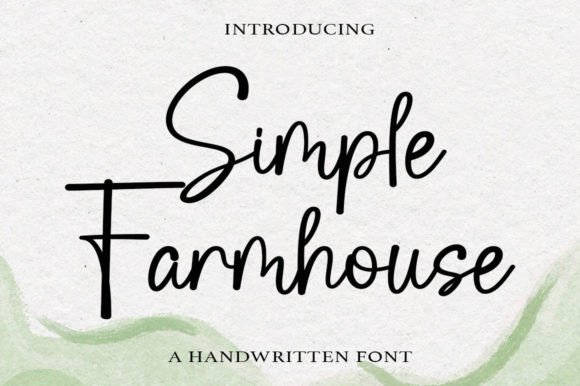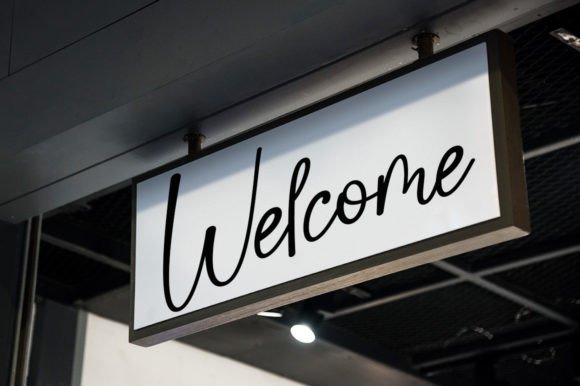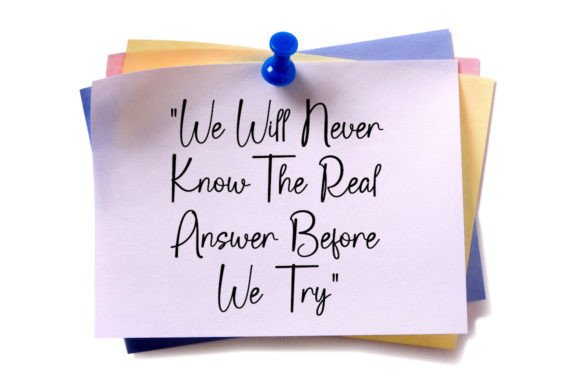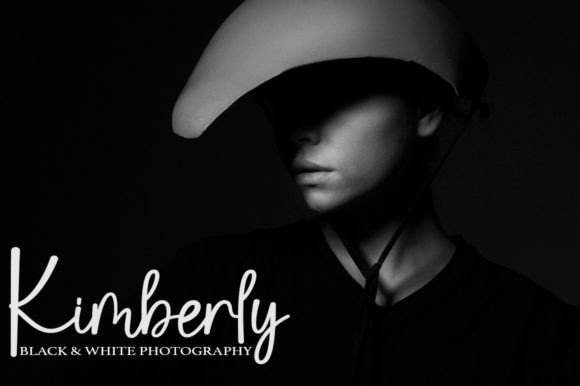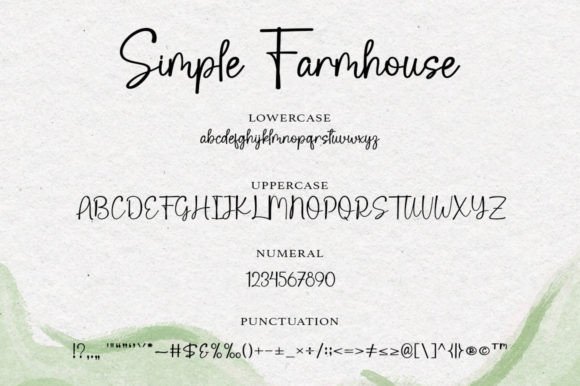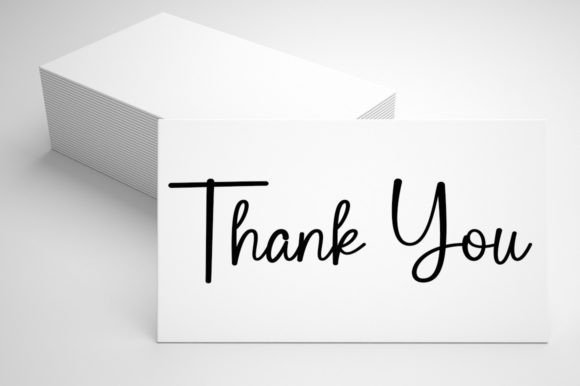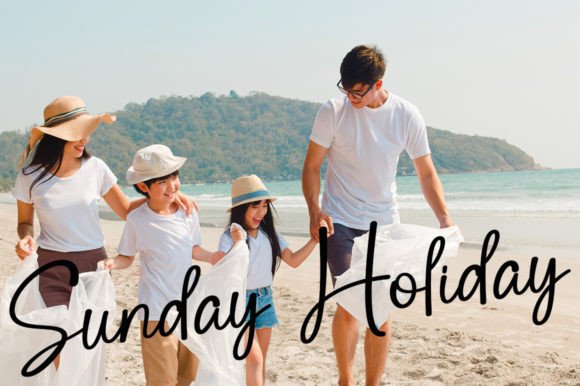
Simple Farmhouse Font
About Simple Farmhouse Font
Simple Farmhouse is a graceful and modern calligraphic font. With its beautiful rhythm, this font will help you create gorgeous and classy compositions. Use it for branding projects, invitations, web graphics, cards, and many more!